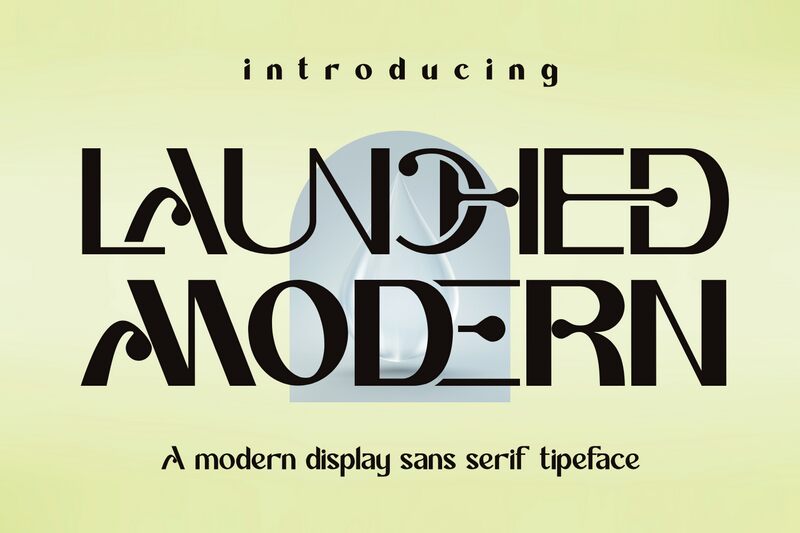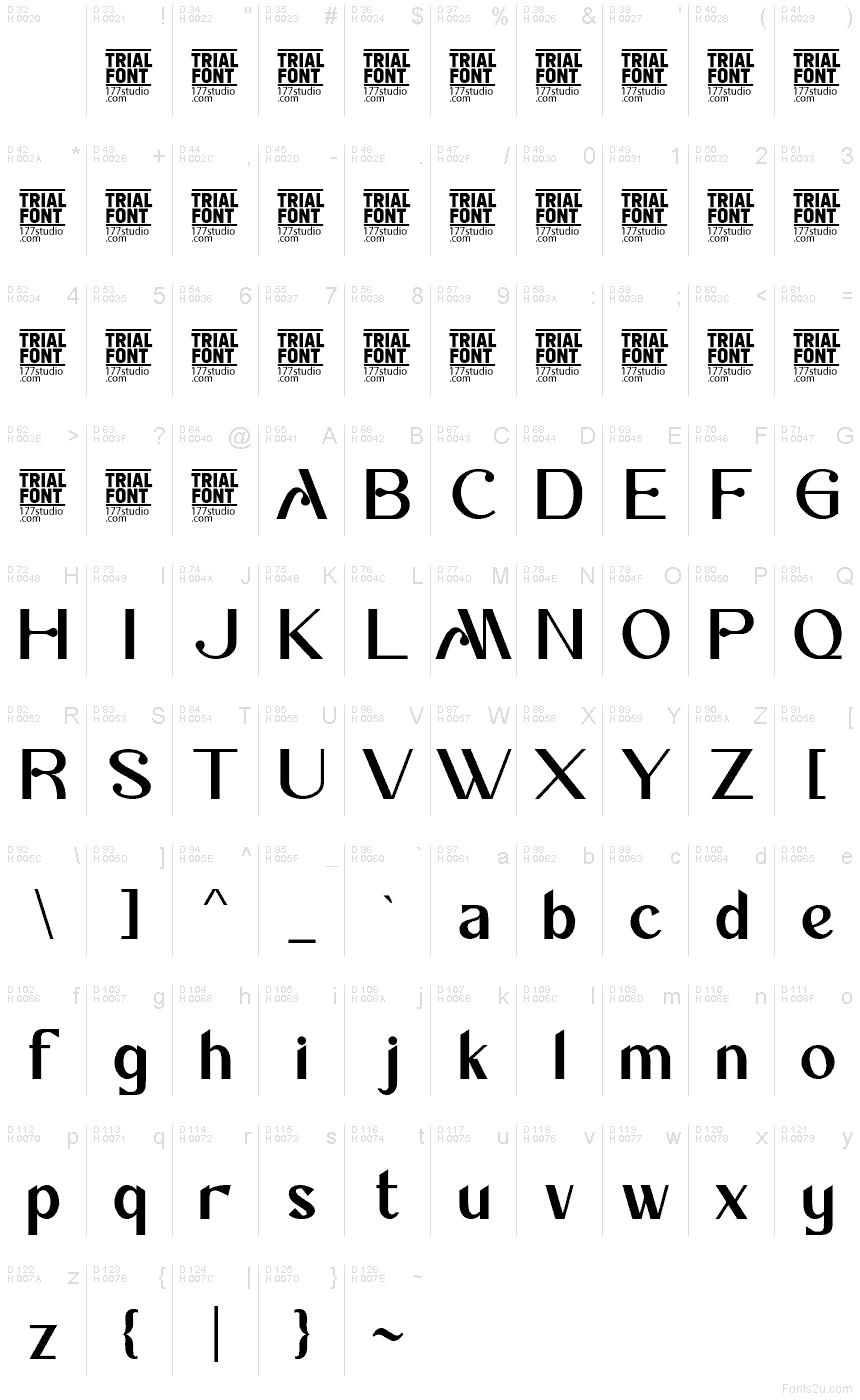
LAUNCHED MODERN DEMO Regular
Launched Modern font by 177Studio is a free decorative serif typeface with a striking, rocket-like energy. Its tall, ultra-narrow letters, sleek curves, and razor-straight verticals create a sense of lift-off, as if each word is stretching upward. The sculpted diagonals and unexpected bends give it a futuristic Art Deco twist, making every title look intentional and meticulously designed.
Using Launched Modern, you get lettering that instantly commands attention on posters, logos, editorial headlines, packaging, album covers, and fashion branding. This free font thrives at large sizes where its elegant quirks and tight rhythm can really breathe. Pair it with a clean, neutral sans serif for small text to keep layouts readable while the Launched Modern caps do the show-stealing work.